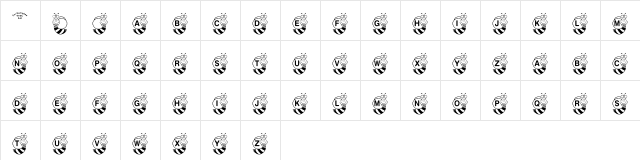
KR Hunnybee Regular Free Font
KR Hunnybee Regular
Design Context for KR Hunnybee
KR Hunnybee is a composed and adaptable typeface that performs quietly and consistently across a wide range of design contexts.